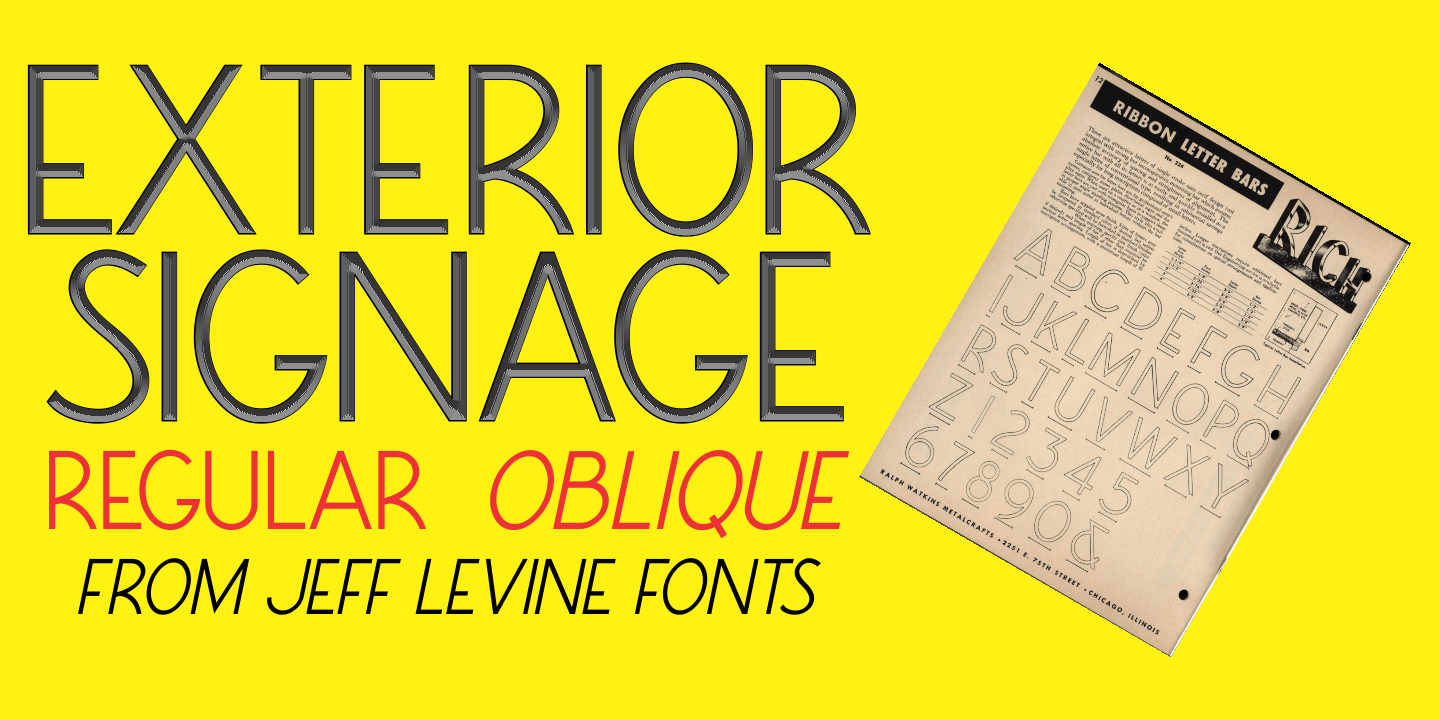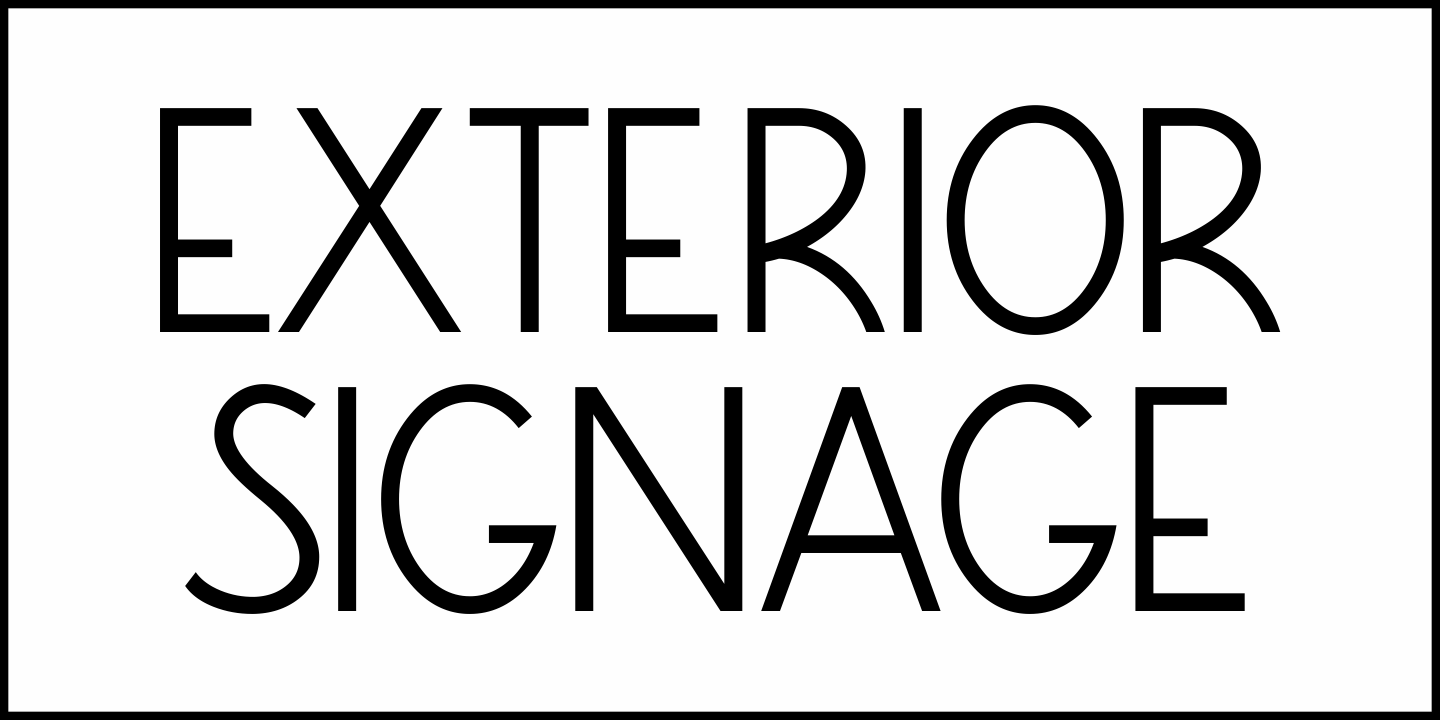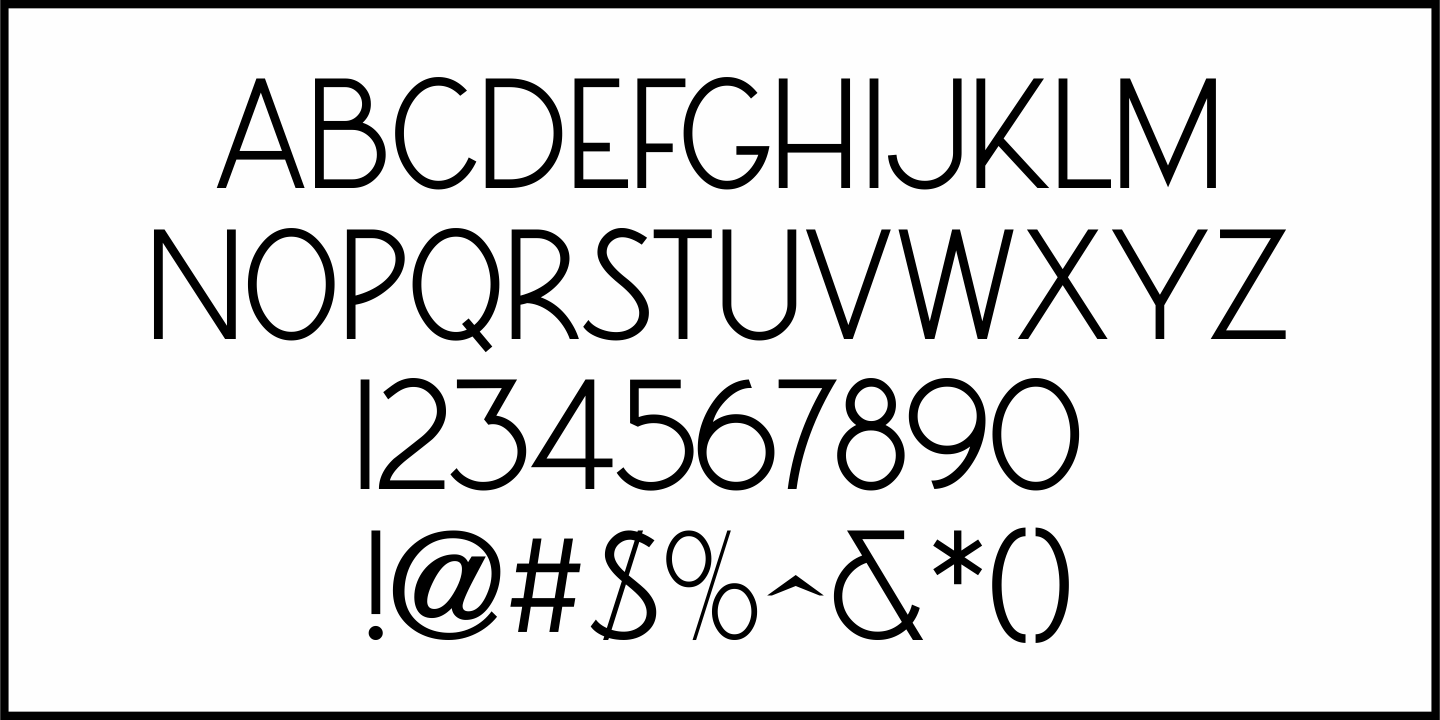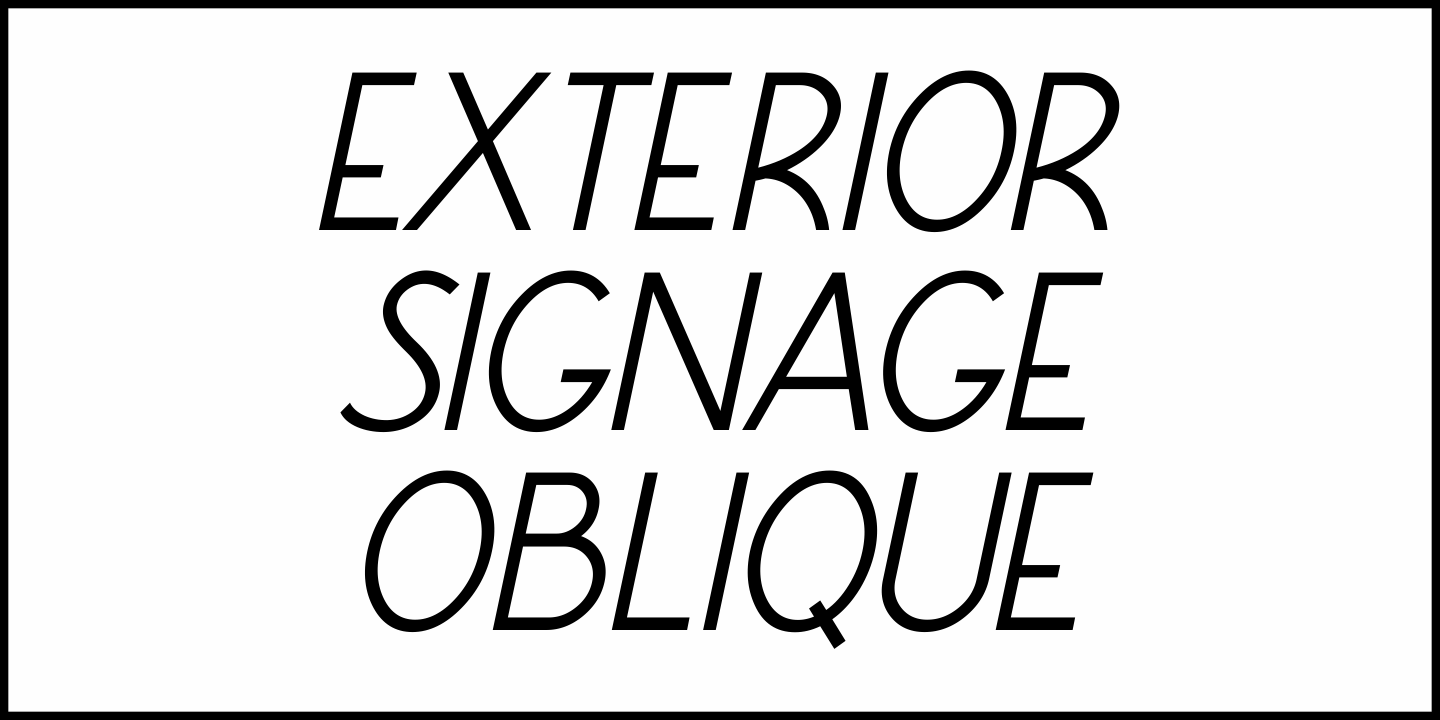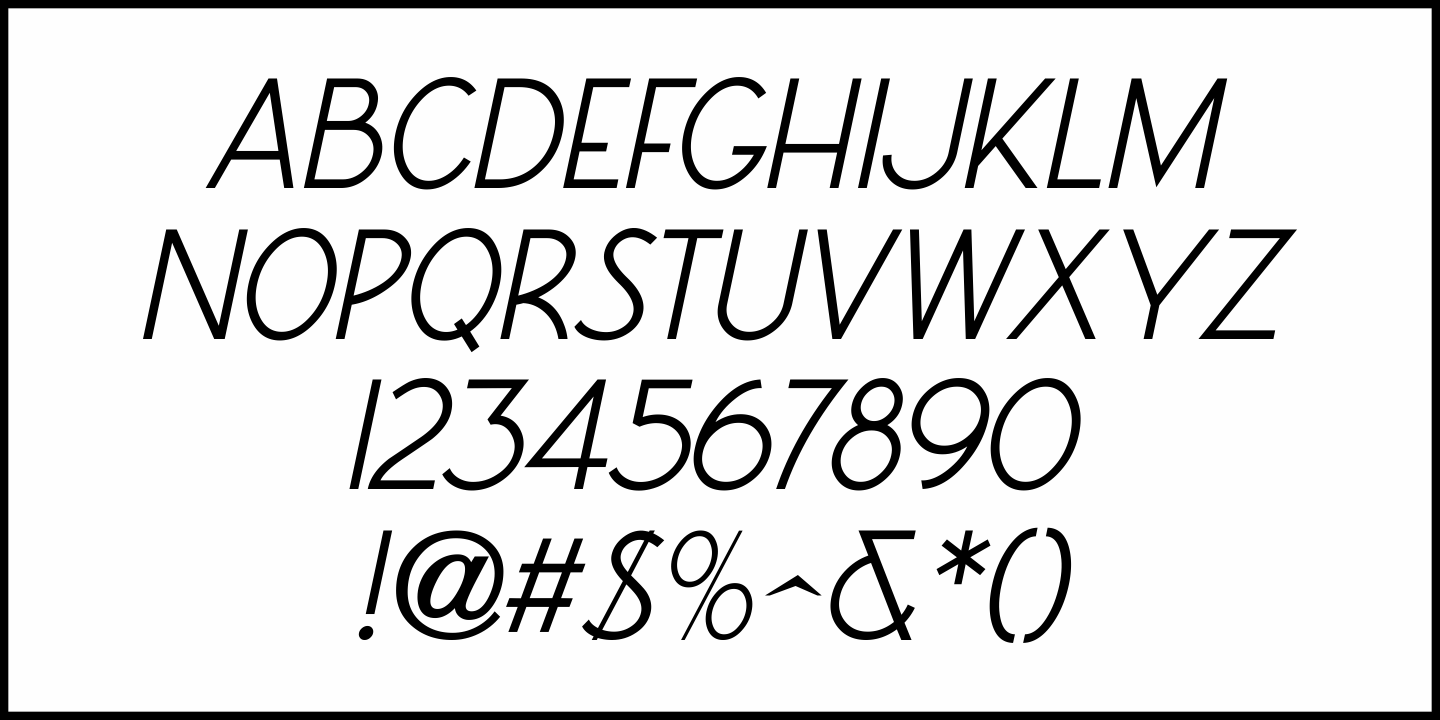
Exterior Signage
Line drawing examples of "ribbon style" (monoline) fabricated metal sign letters was found within the pages of the 1960 catalog from Ralph Watkins Metalcraft (of Chicago).  While the Art Deco influences in this lettering style suggest this design may have been in use by the company for years,it was still contemporary in 1960.
This inspired Exterior Signage JNL, which is availble in both regular and oblique versions.
Exterior Signage JNL Regular by Jeff Levine Fonts